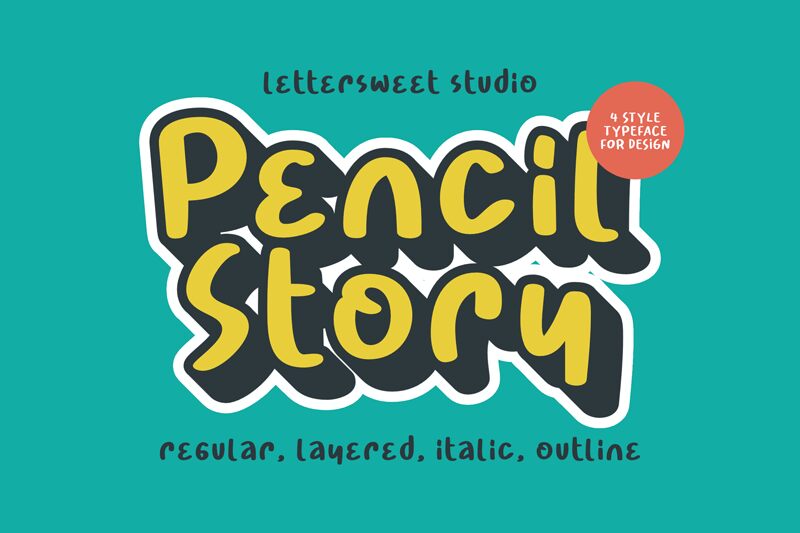
Pencil Story Regular
Pencil Story font by Lettersweet Studio is a free bold handwritten display font. Built for playful, kid-facing work, it carries a bouncy baseline, chunky strokes, and pill-shaped curves that feel like letters doodled with a soft pencil. The round terminals and roomy counters keep it readable at a glance, while the wonky rhythm adds a friendly, storytime vibe without turning messy.
Using Pencil Story, you’ll get lively headlines for children’s book covers, classroom posters, activity sheets, toy packaging, birthday invites, social graphics, and sticker sets. This free font shines when set large with slightly looser line spacing. For balance, pair it with a simple rounded sans for body copy, letting Pencil Story handle the cheerful, attention-grabbing parts.